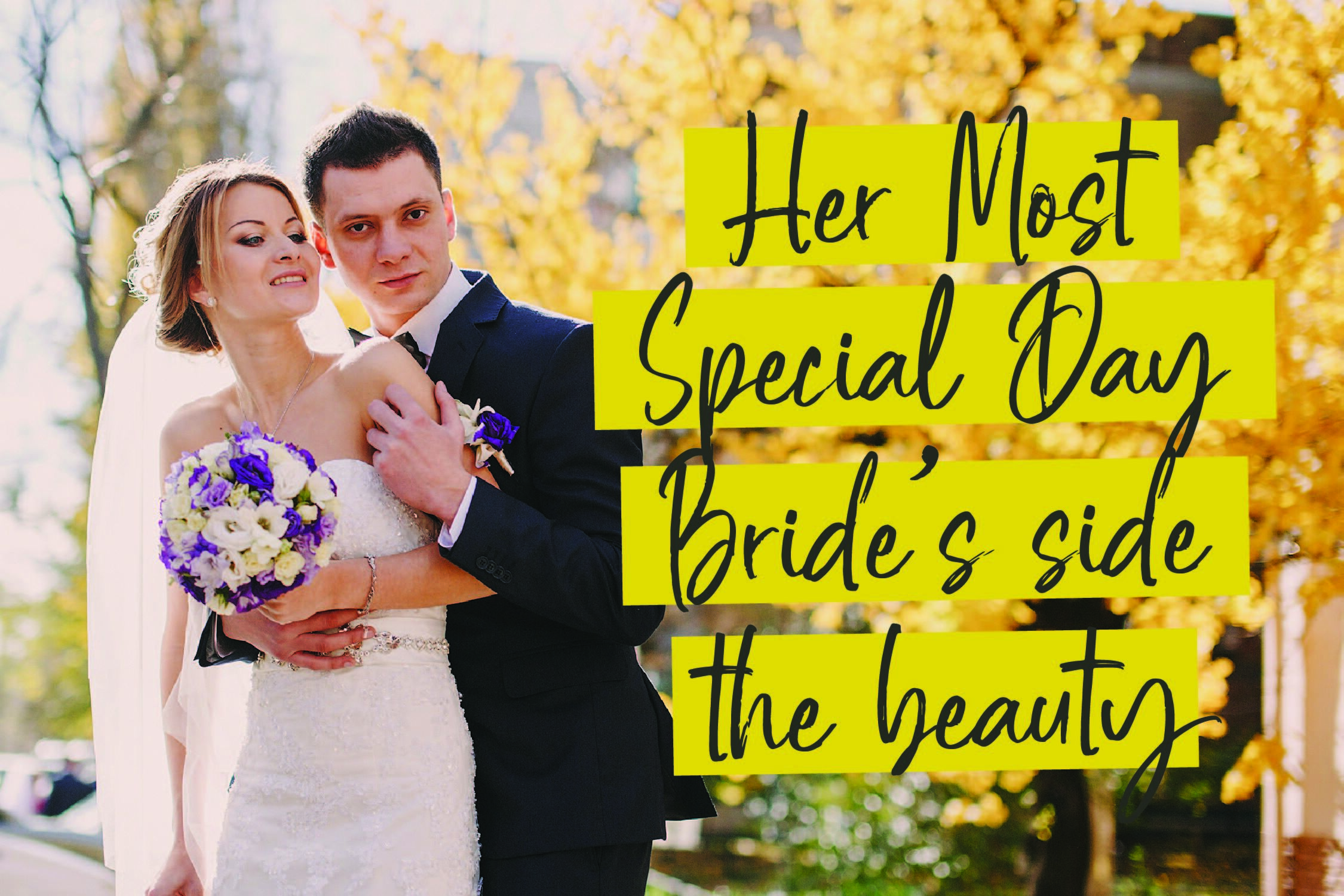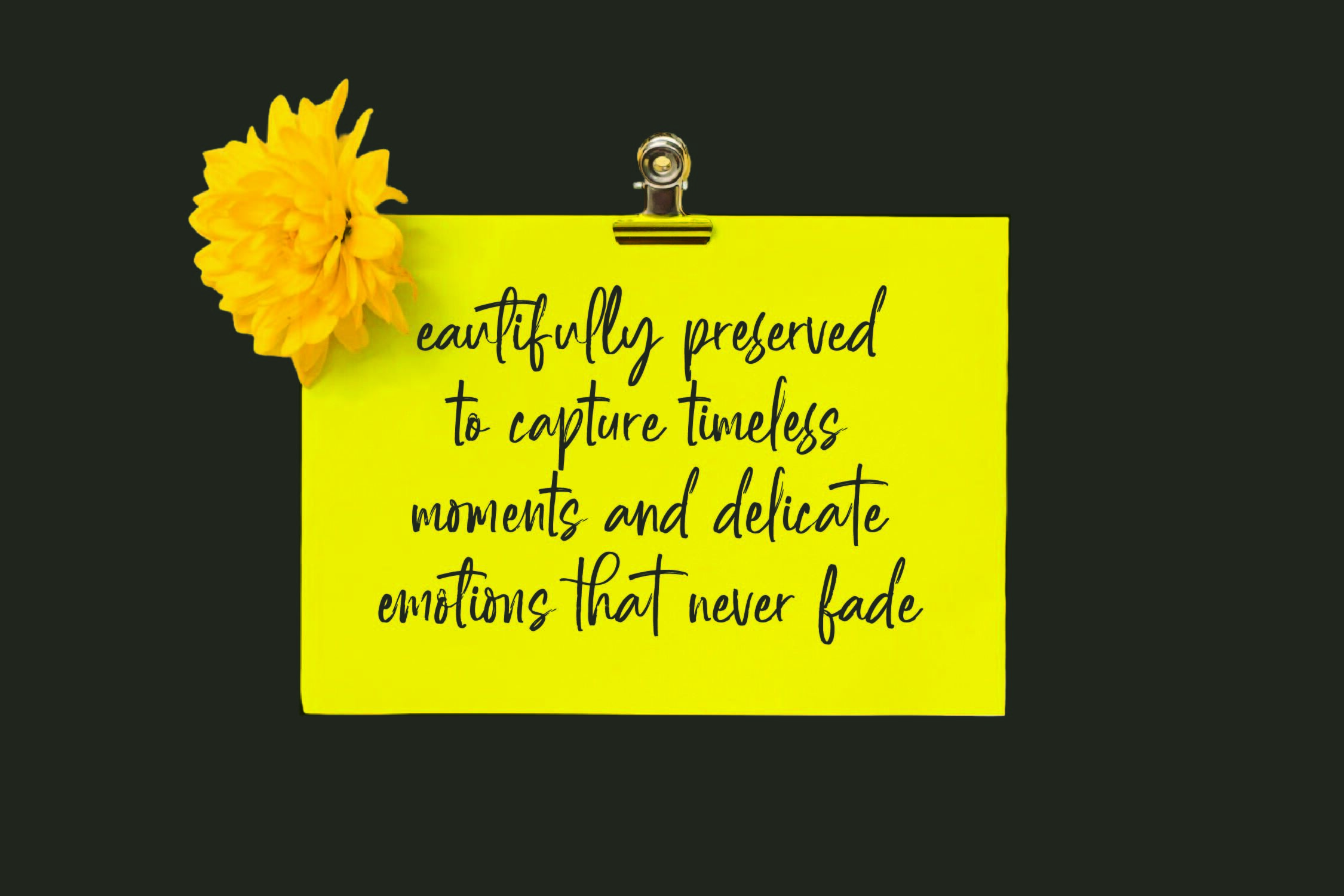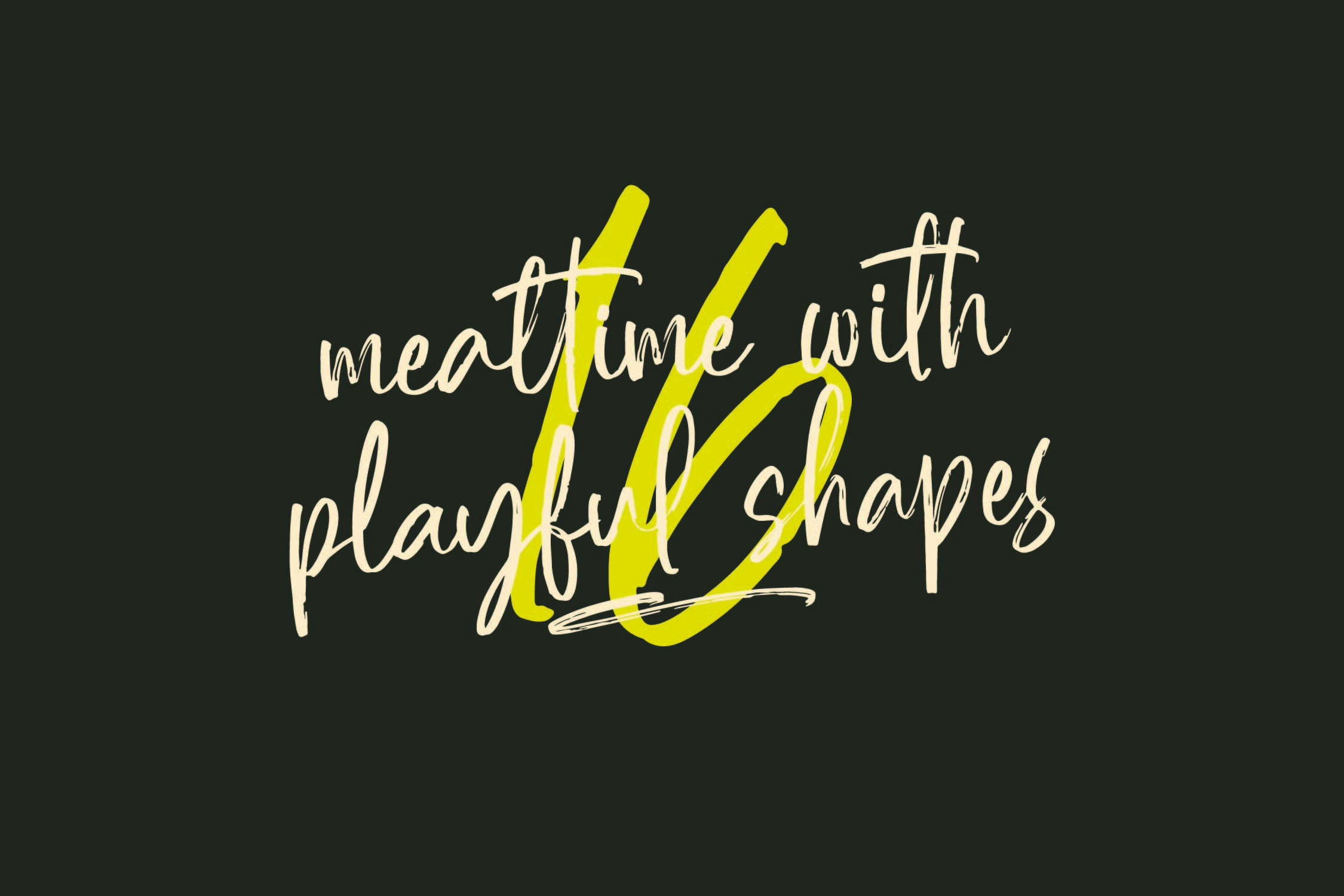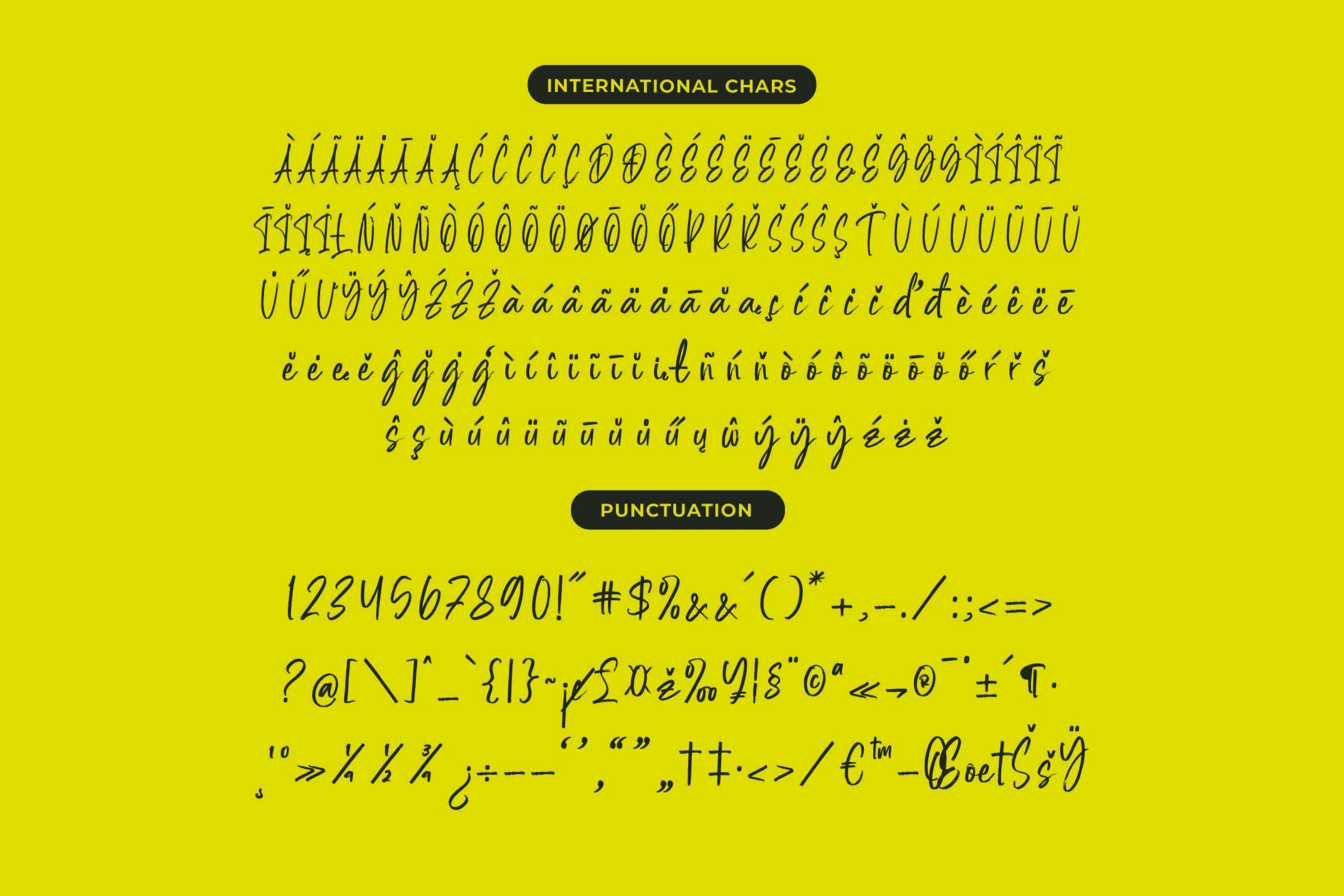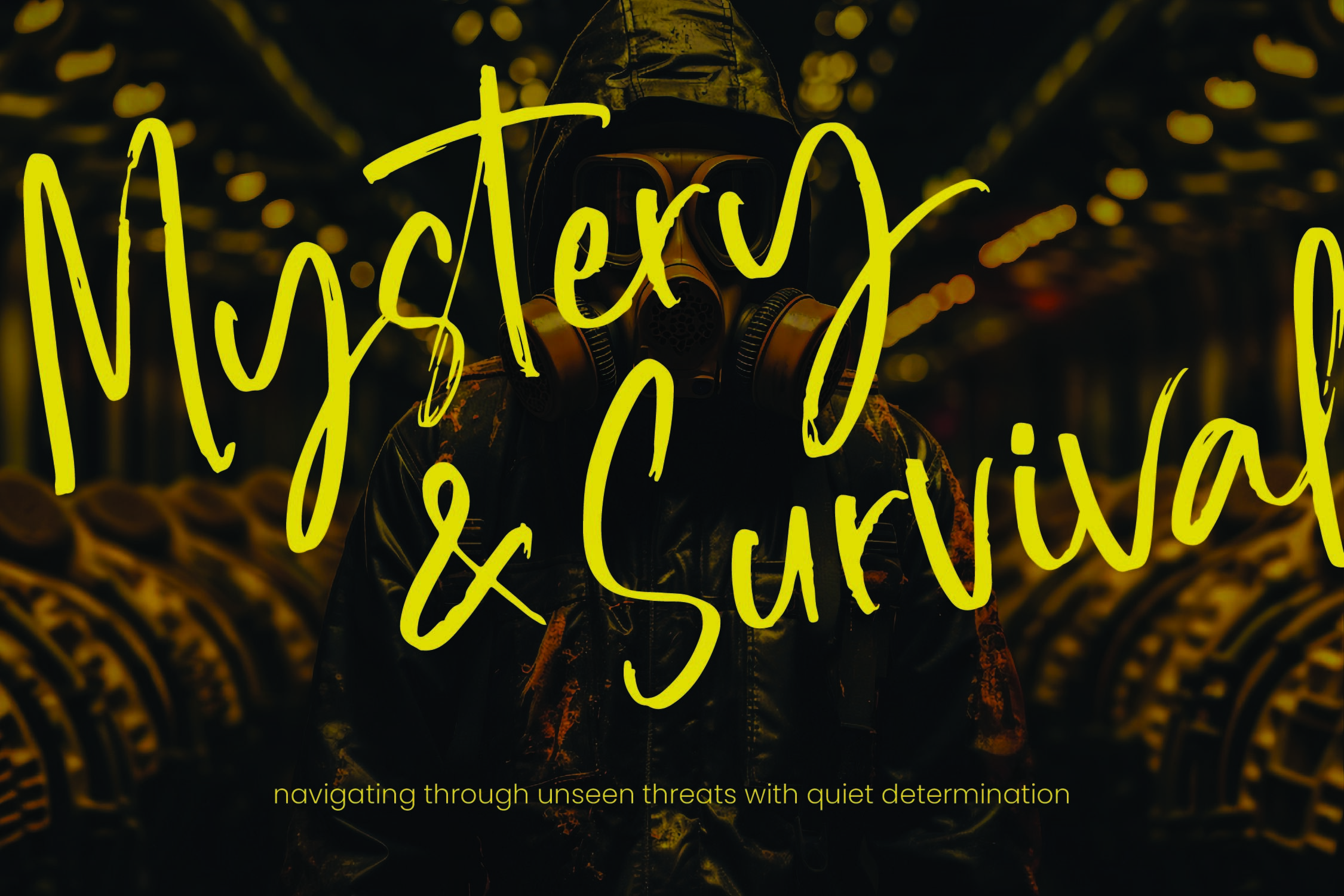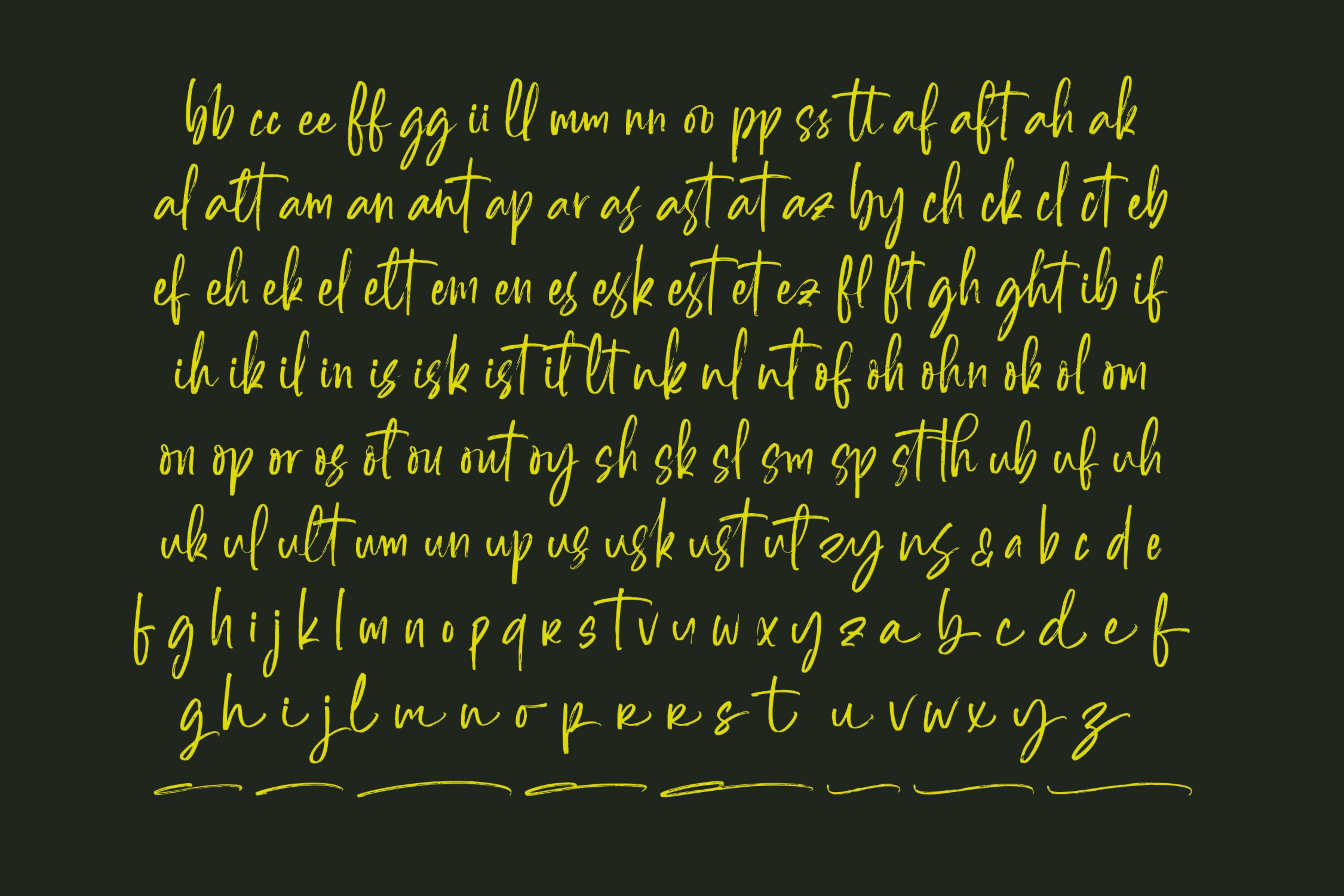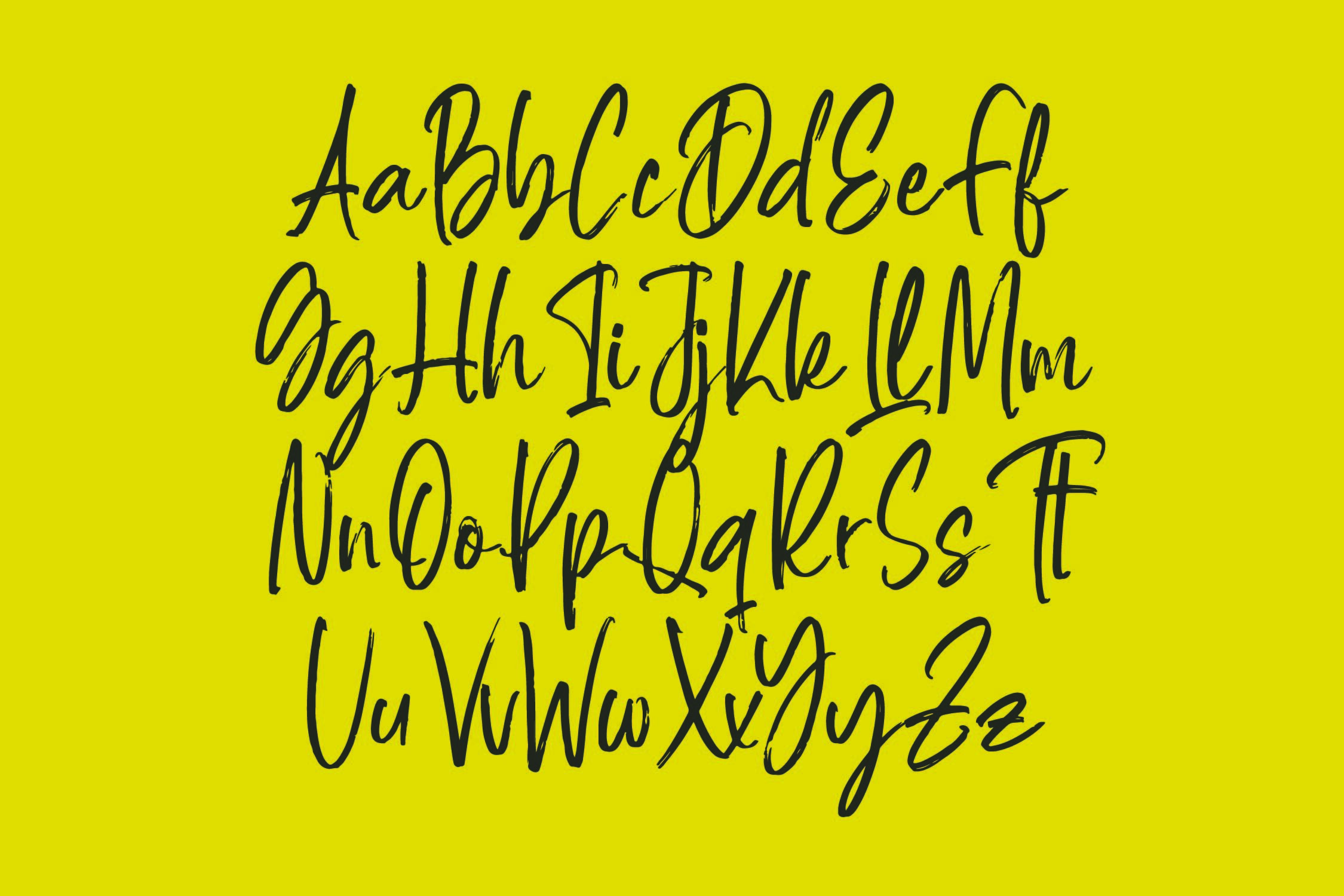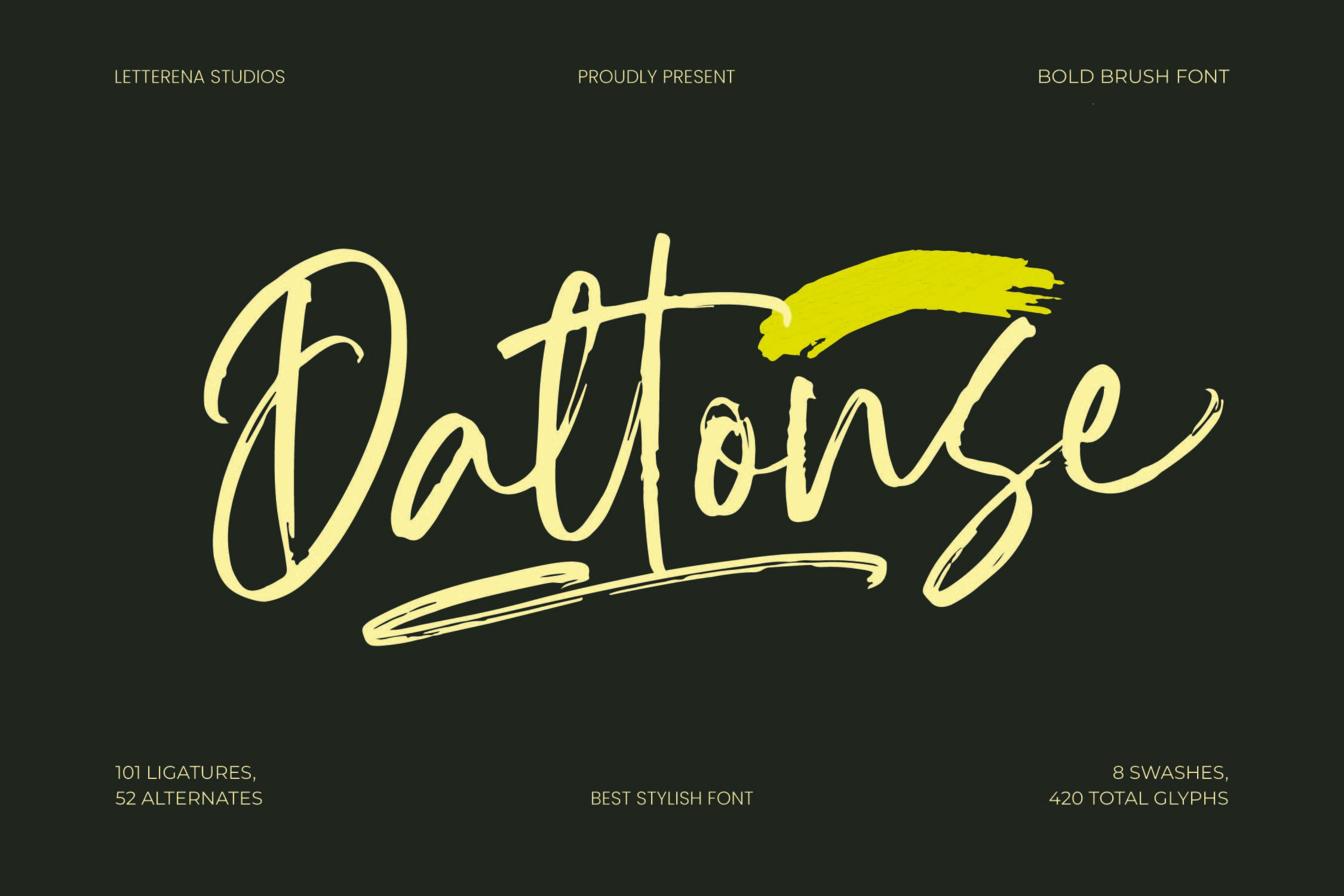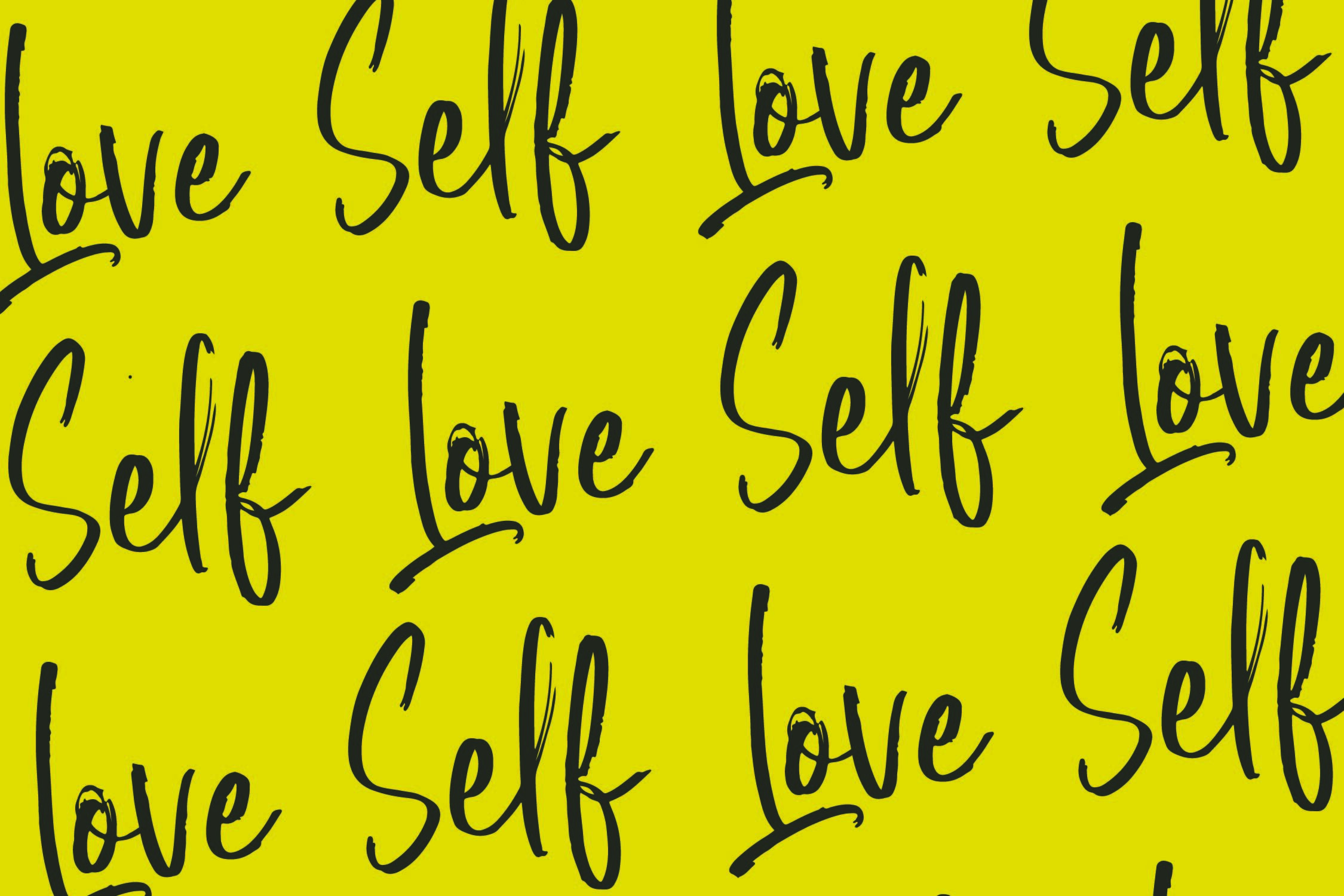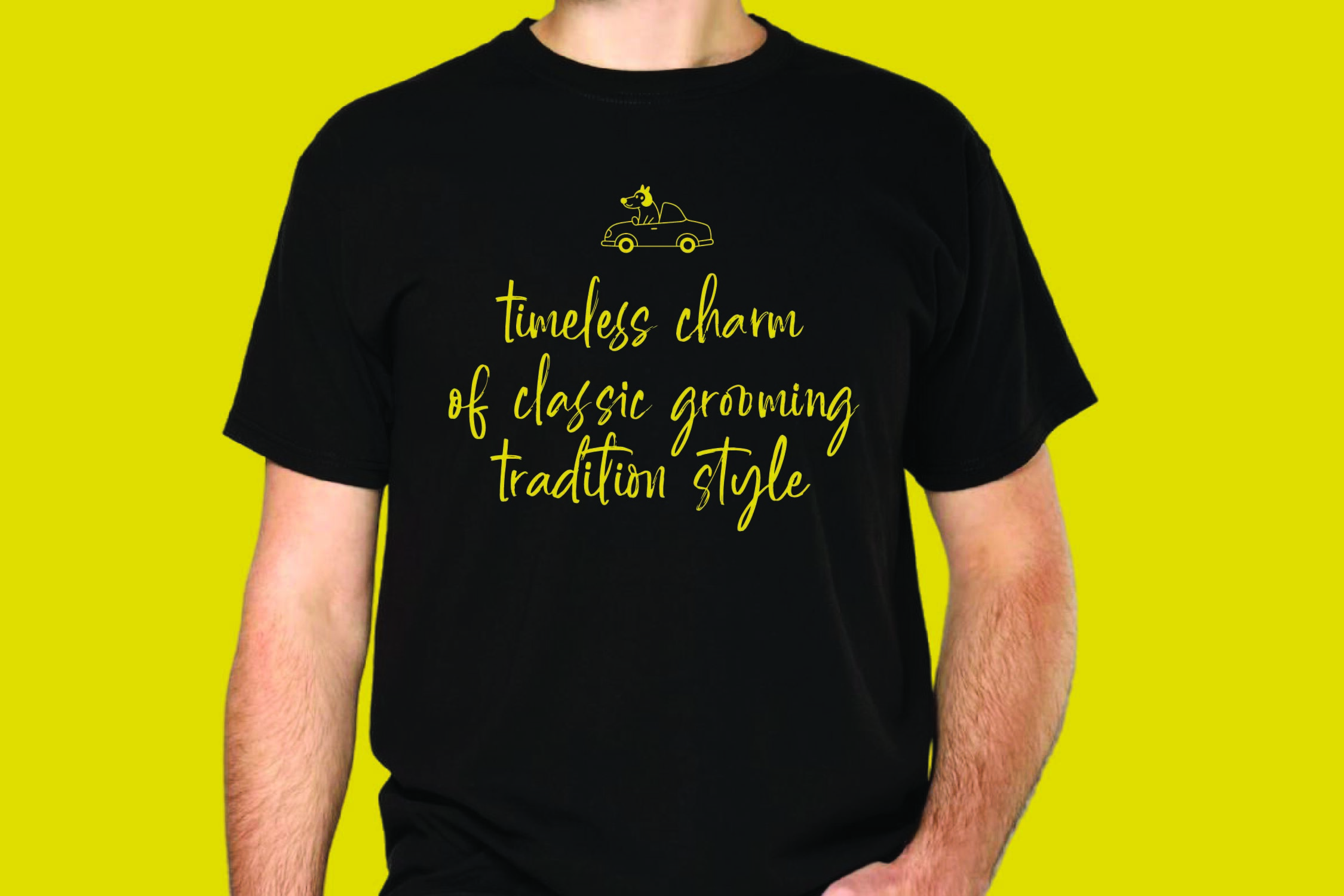
Daltonse - Best Stylish Font
Daltonse - Best Stylish Font, Daltonse is a bold brush script font that combines natural hand-drawn energy with elegant modern styling. Featuring 101 ligatures, 52 alternates, and 8 swashes across 420 total glyphs, this typeface captures the authentic texture of brush lettering — perfect for branding, logos, posters, packaging, invitations, and social media graphics. Each stroke of Daltonse reflects confidence and movement, making it ideal for designers who want to add a personal yet powerful touch to their creations. With its stylish curves and handcrafted feel, Dattongé delivers bold artistic flair to both print and digital projects.
Daltonse Italic
Daltonse
Daltonse - Best Stylish Font